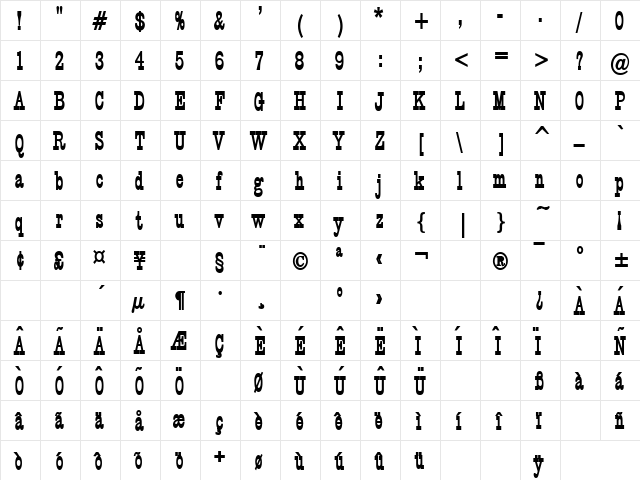
Circus Thin Bold
Design Context for Circus Thin Typeface
Circus Thin takes a measured approach to typography — its balanced proportions and neutral character make it a reliable workhorse for both digital and print work. The heavy weight commands attention and anchors typographic hierarchies.